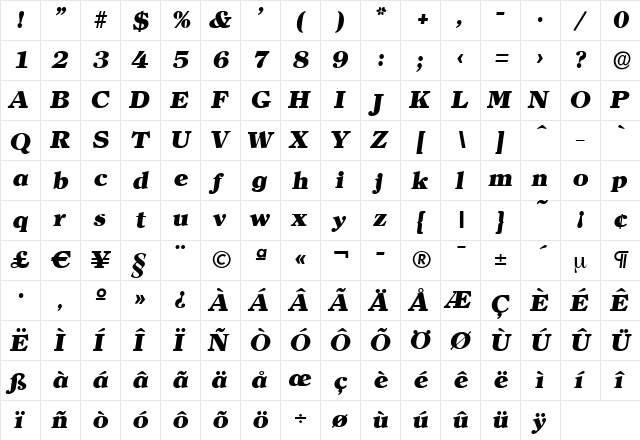
ChristianBecker-Heavy Italic
Design Context for ChristianBecker-Heavy Typeface
ChristianBecker-Heavy offers clean, dependable letterforms without strong stylistic allegiance, making it a practical choice for designers who need flexibility. The slanted form adds forward momentum and visual energy.